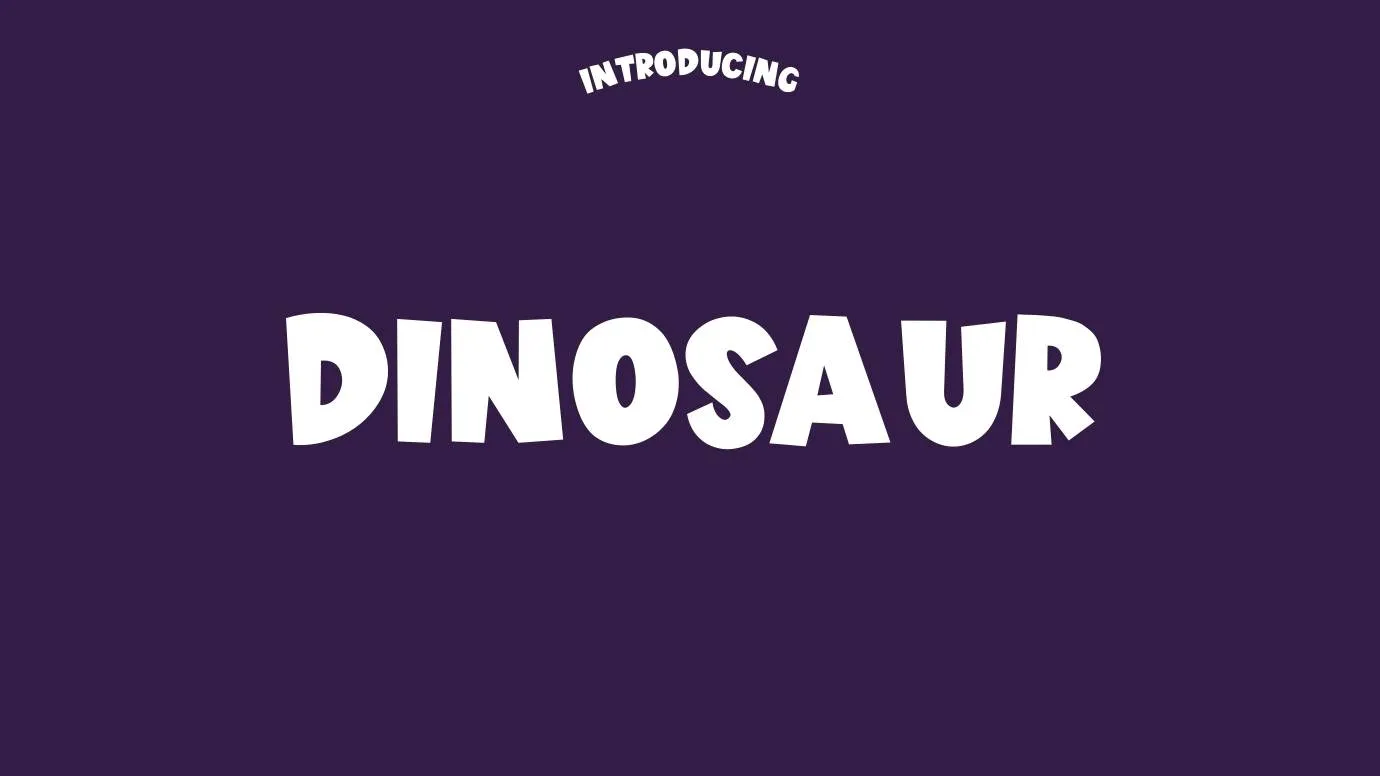
Dinosaur Font Family is available in a cartoon fancy look and lies in the category of the fancy family of fonts. José M. Urós is the original designer of this typeface and released it through HansCo Foundry.
Dinosaur Font